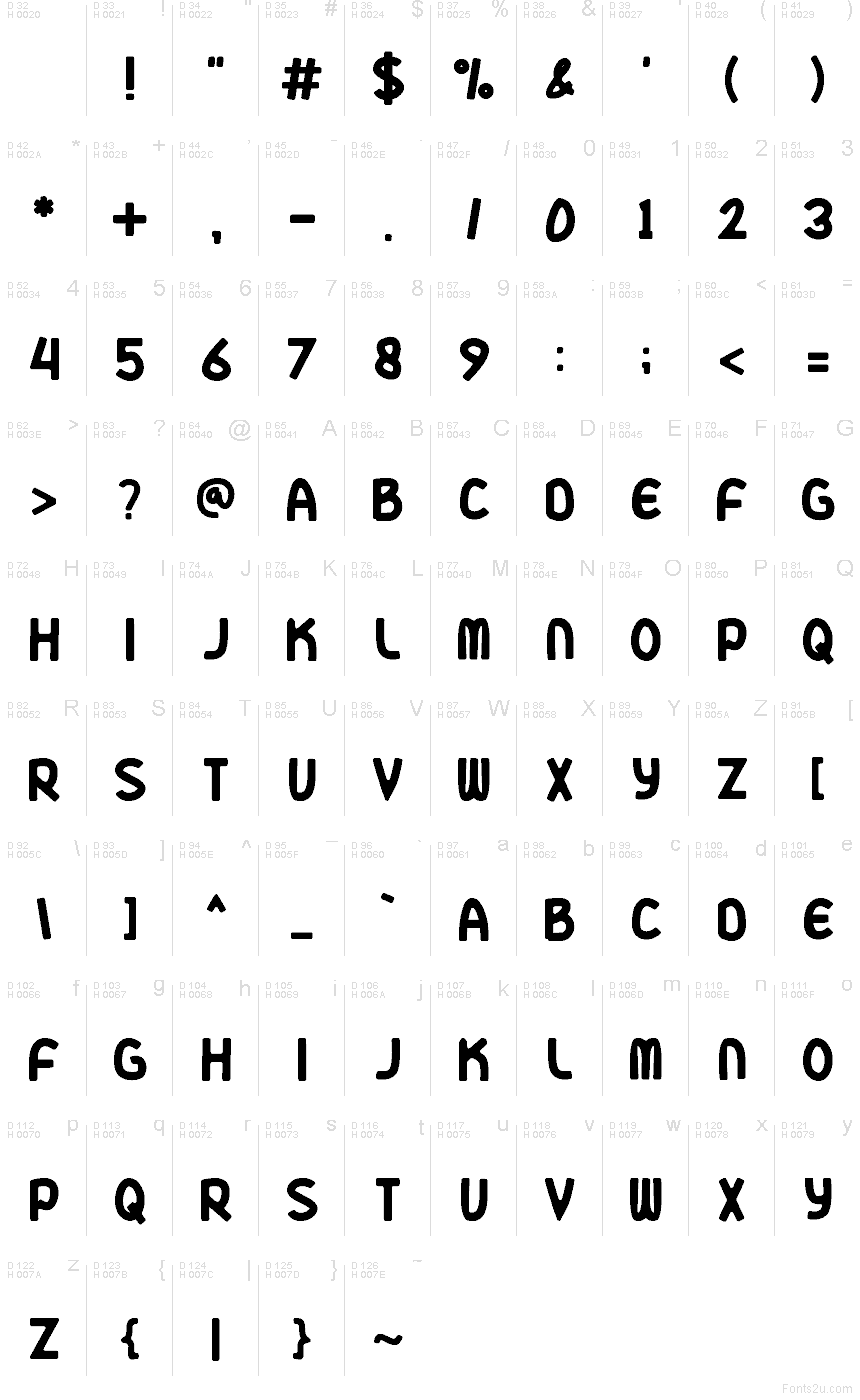
Bobbaluna Cupcake by Futuristype Studio is a free cartoon display font with thick, puffed-up caps that feel somewhere between bubble lettering and frosted signage. The letters look soft and weighty at once, with broad rounded shapes, snug inner spaces, and a slightly squashed, toy-like bounce that keeps the font playful rather than slick.
It fits naturally in kid-focused branding, snack packaging, party invitations, poster headlines, and cheerful social graphics, where a free font with this much volume can carry a short message by itself. Use it for title cards, big logos, or a few oversized words when you want the caps to read like bold little objects instead of plain lettering.